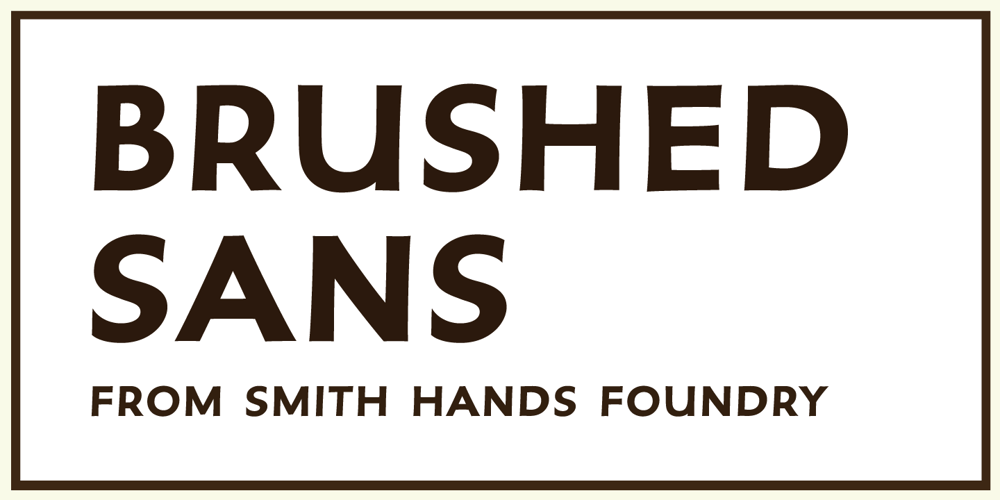
Brushed Sans
Brushed Sans font
Brushed Sans Font Family was designed by Robbie Smith and published by Smith Hands. Brushed Sans contains 1 styles and family package options. A friendly sans serif font inspired by sign written lettering. Brushed Sans captures the nuances that come from the action and speed of the sign writing process.